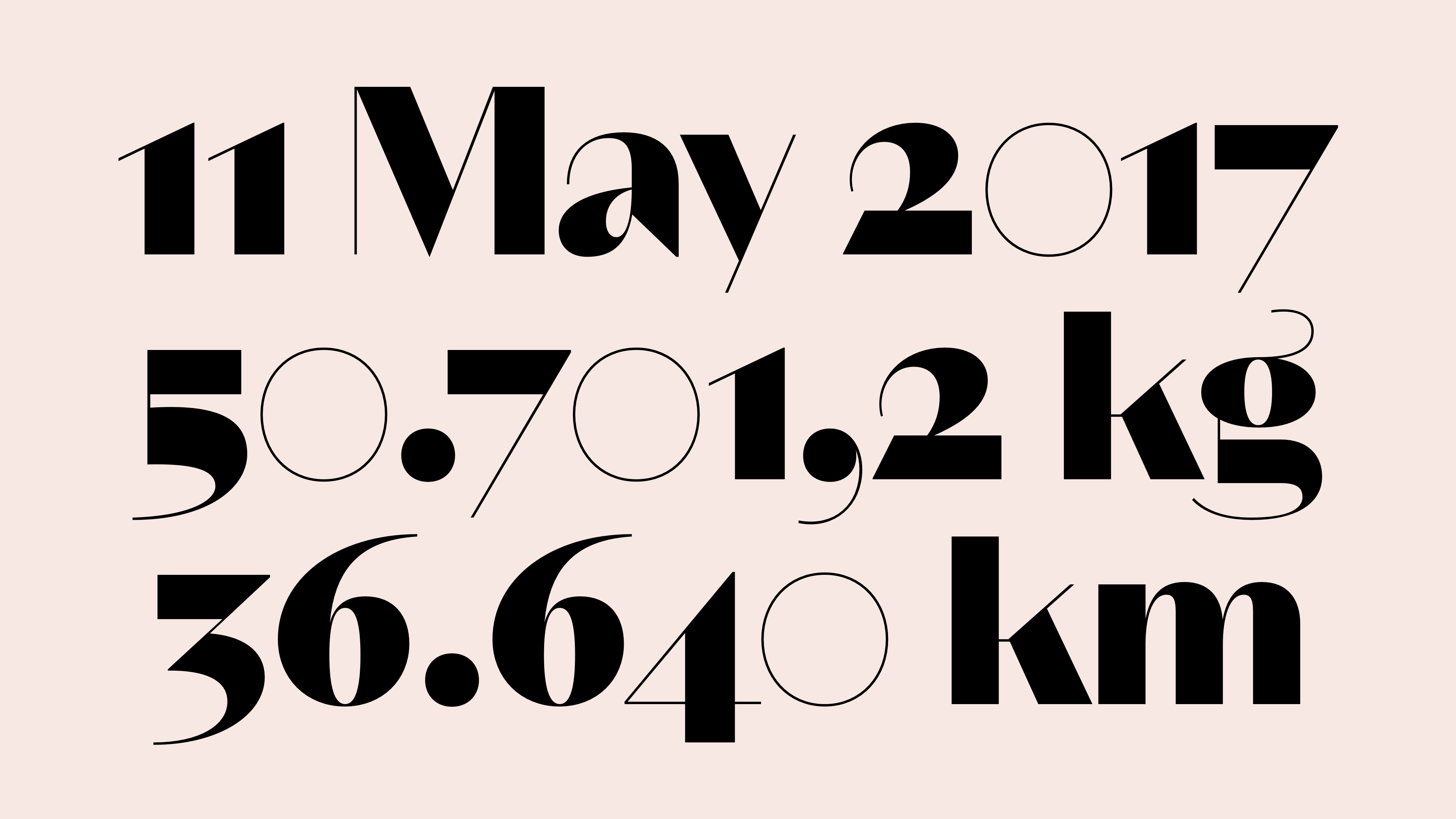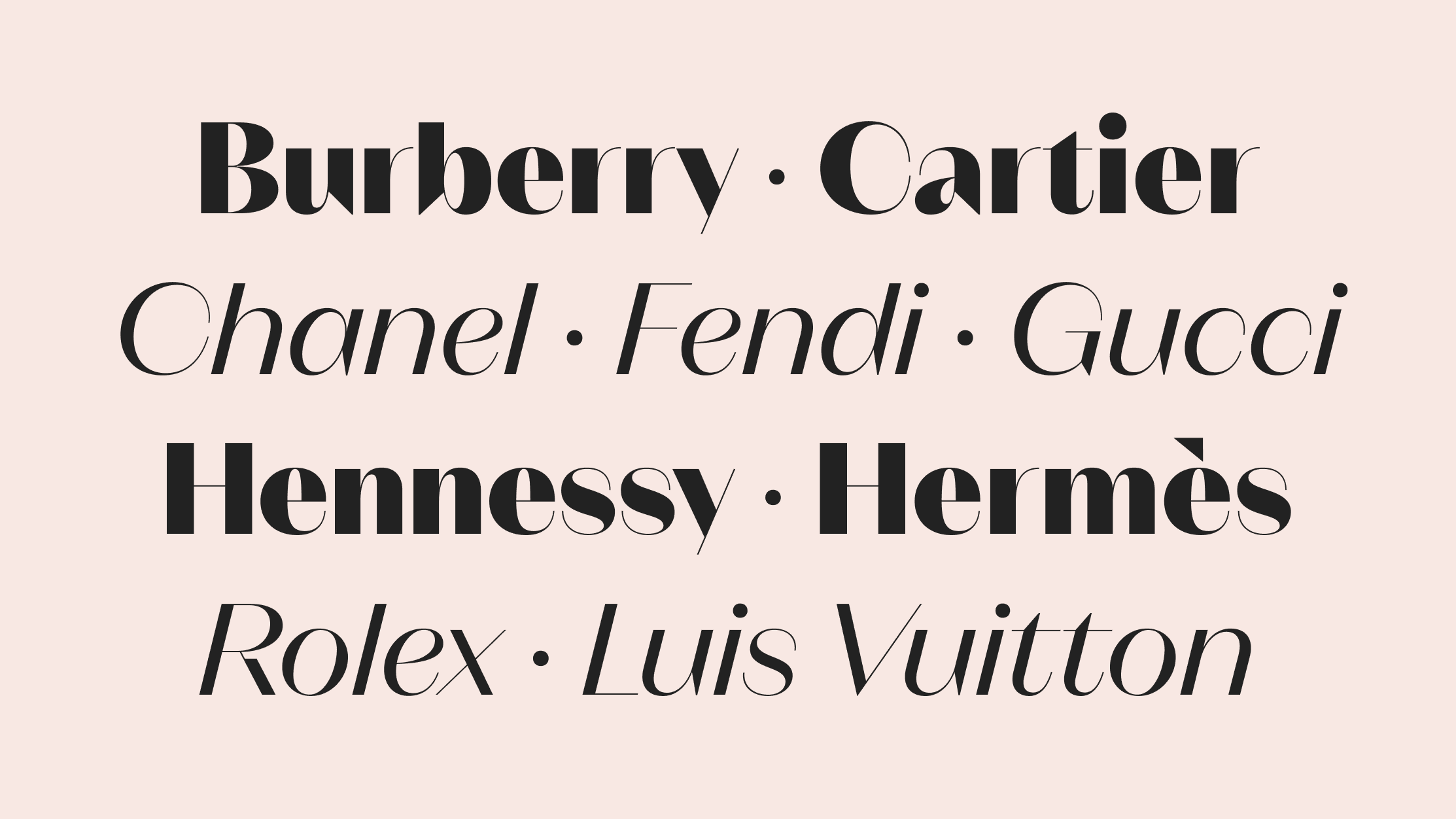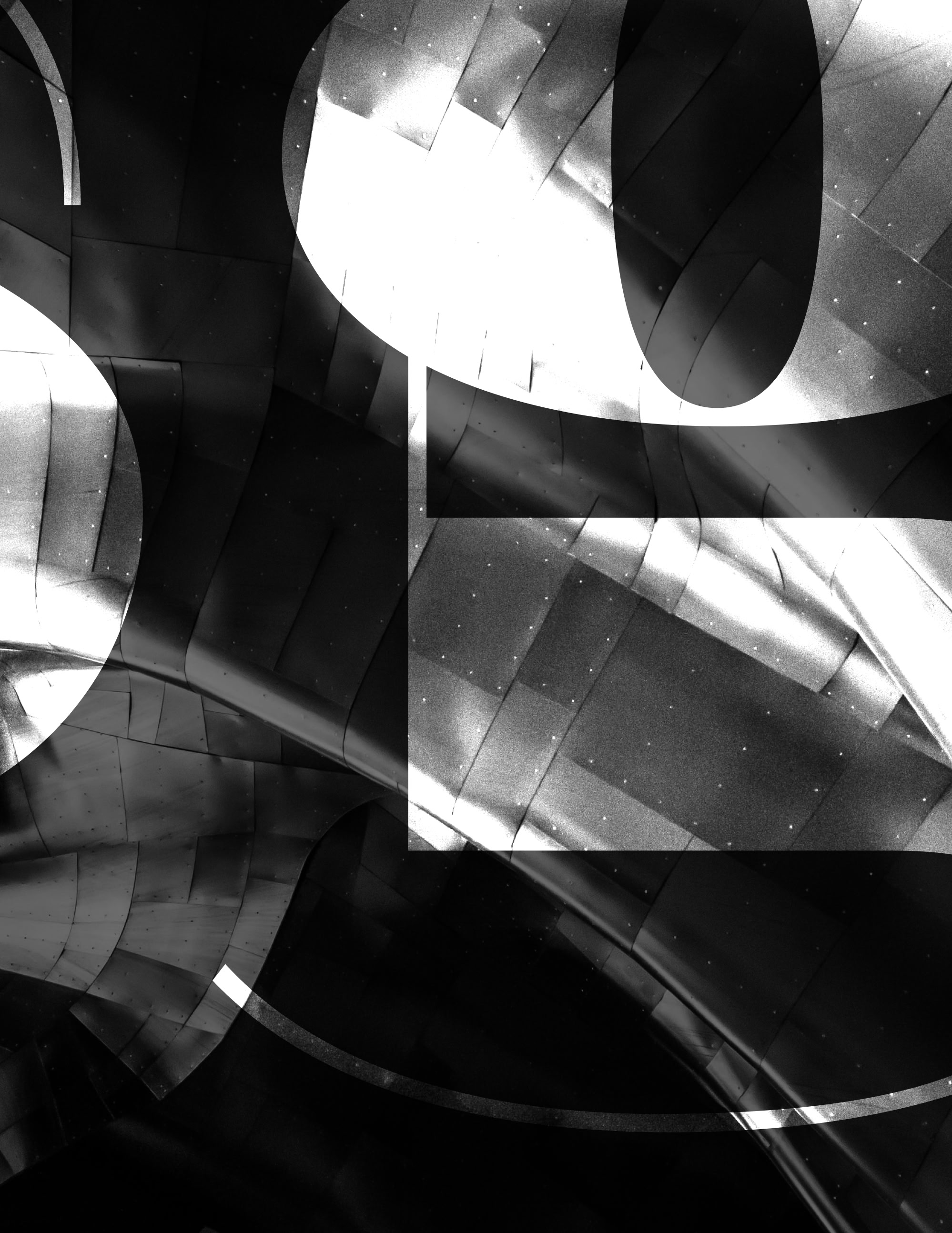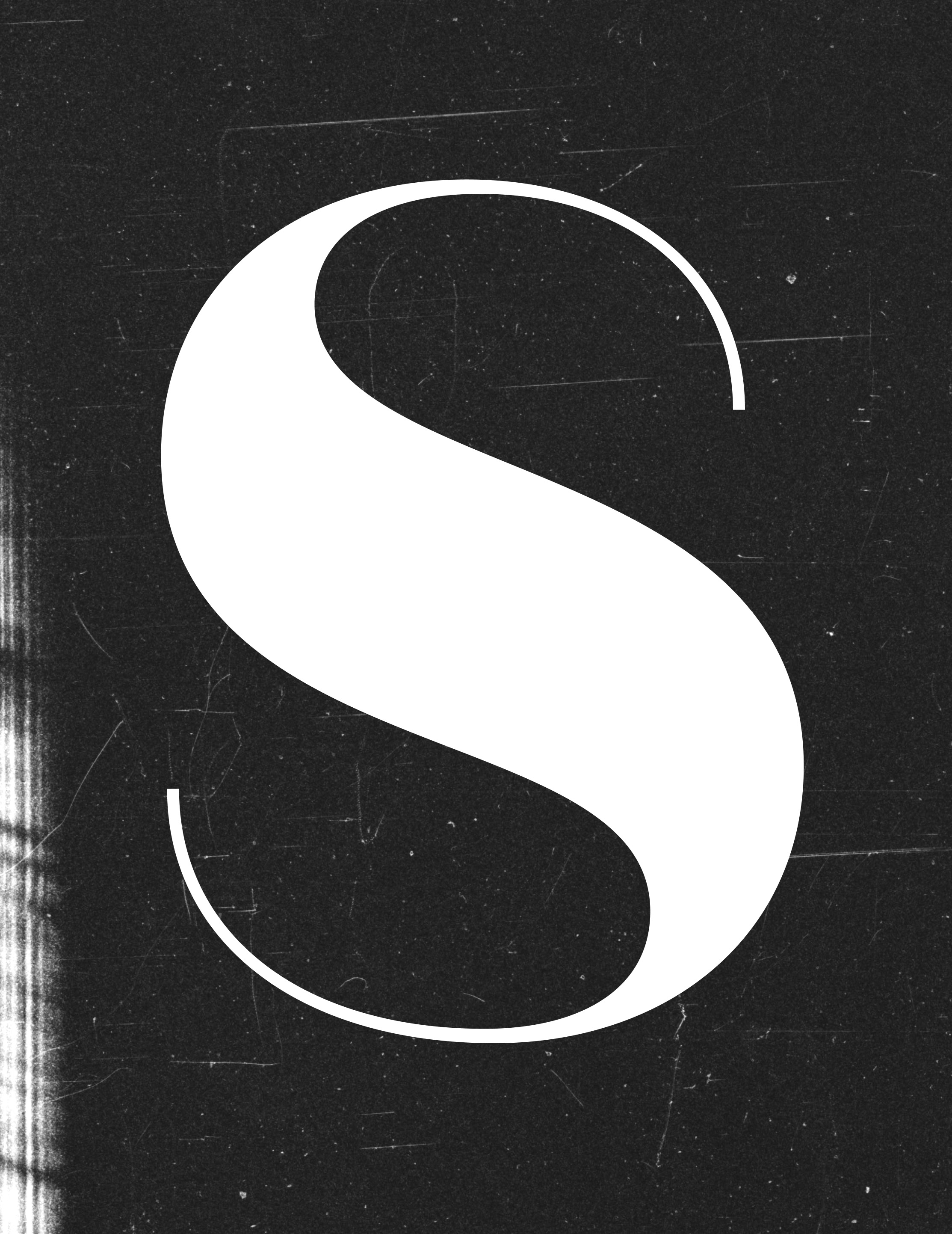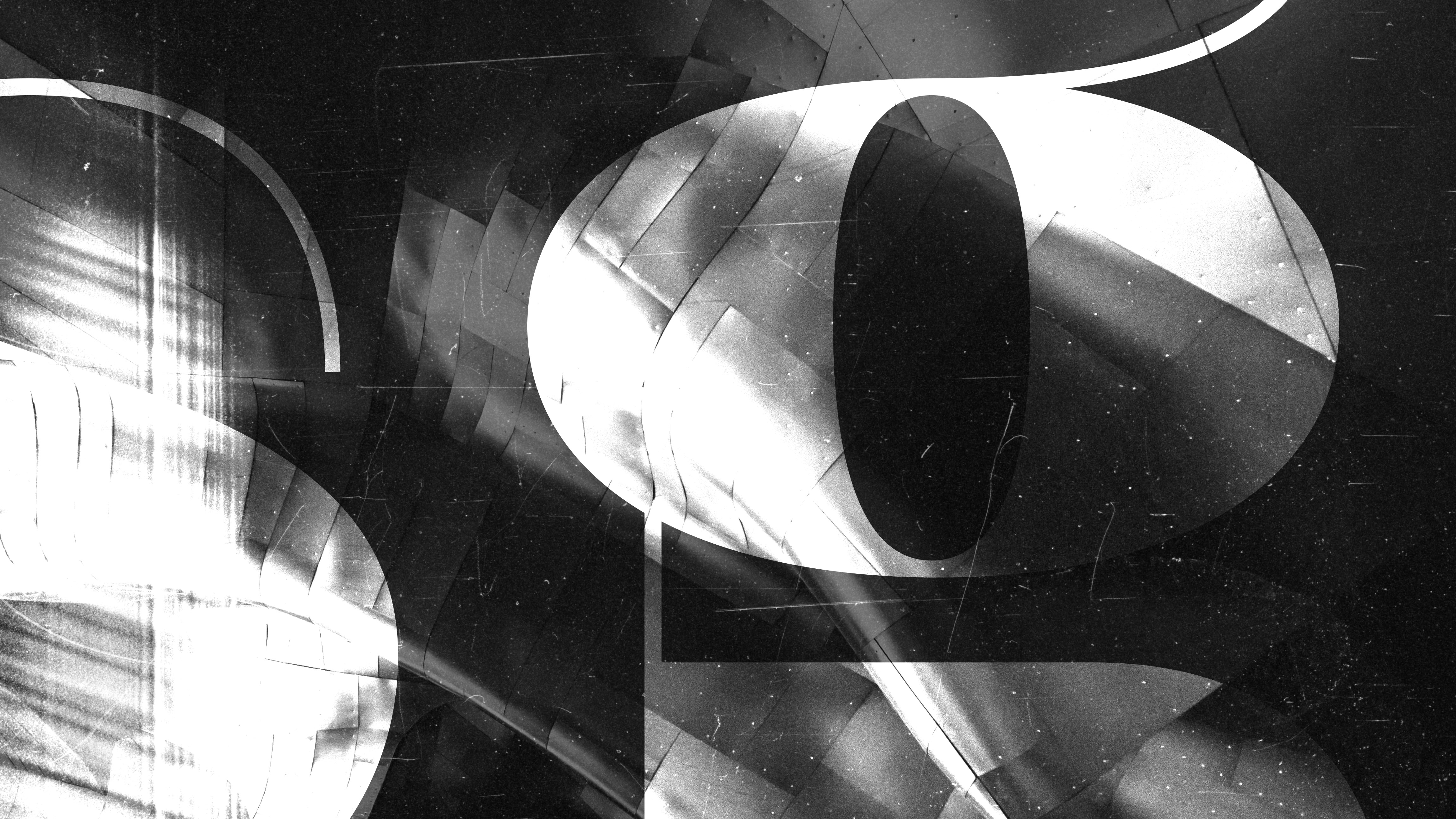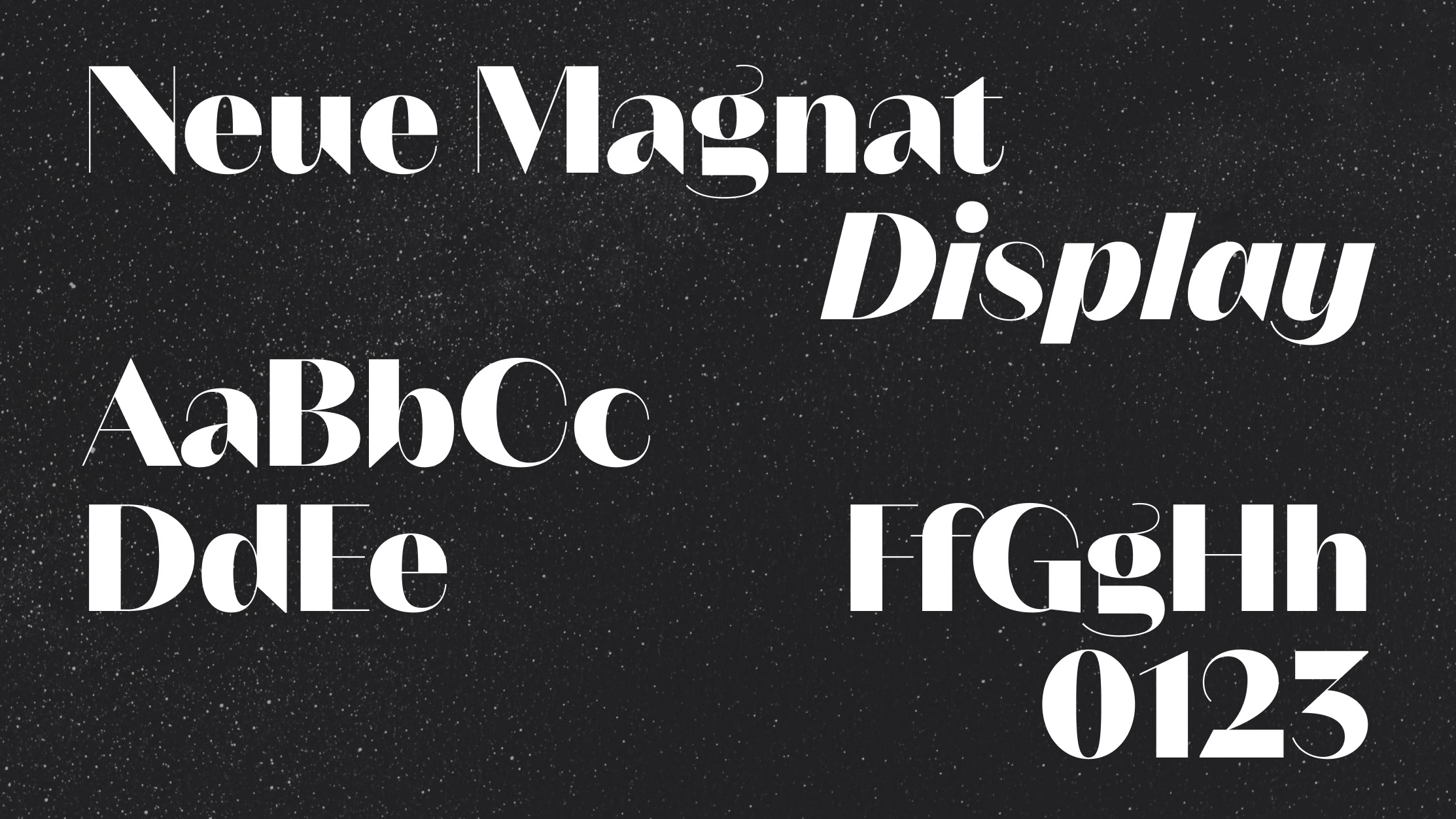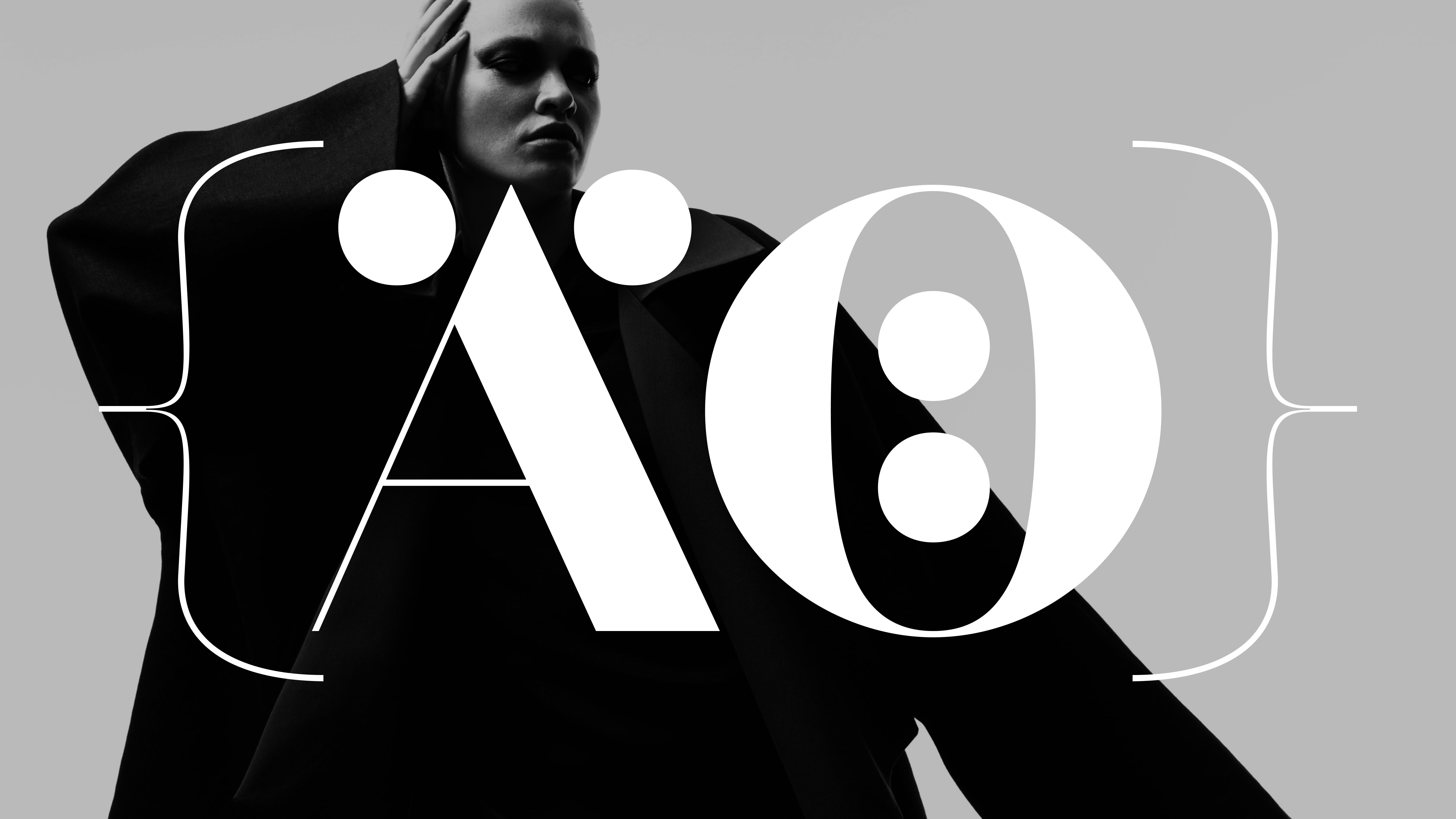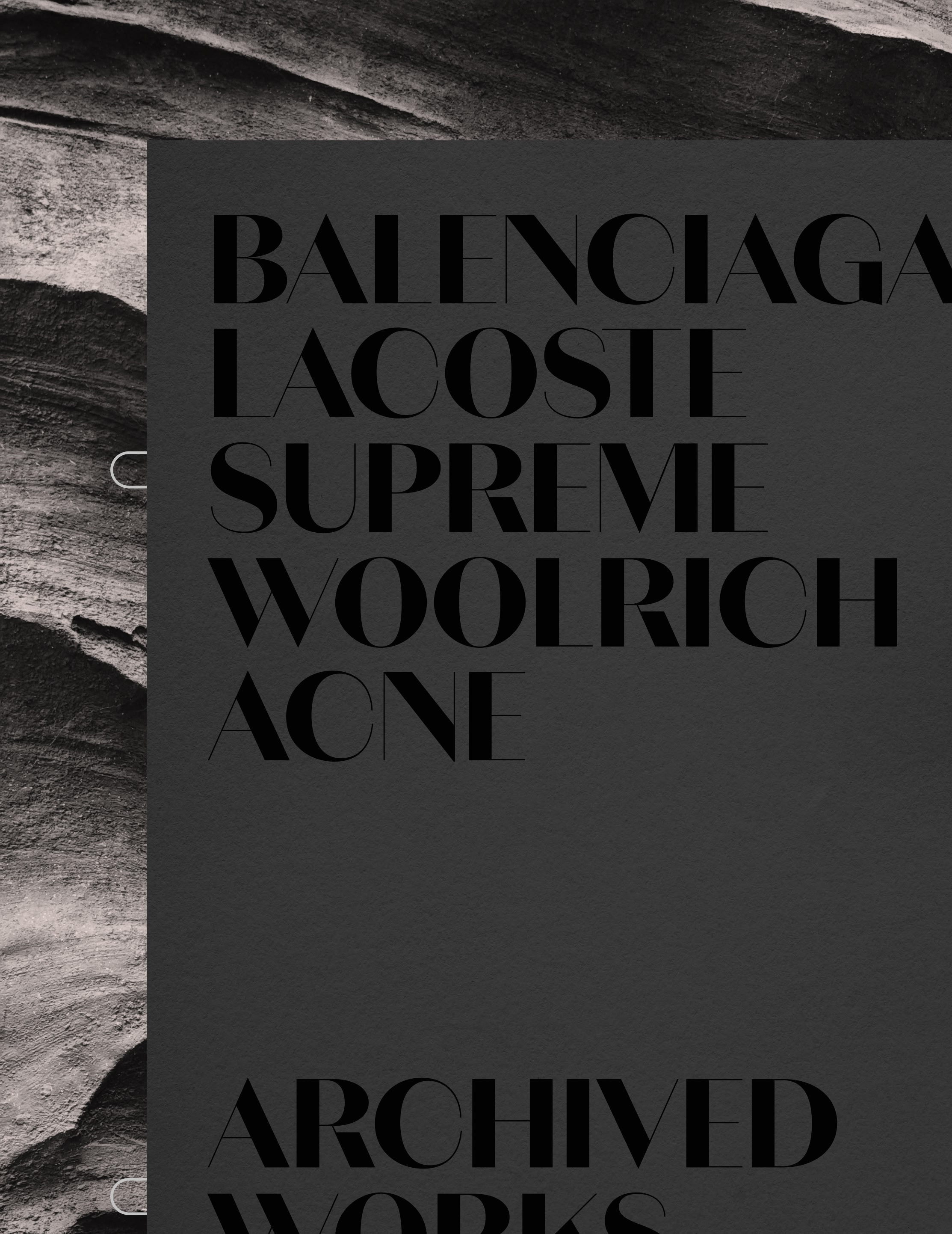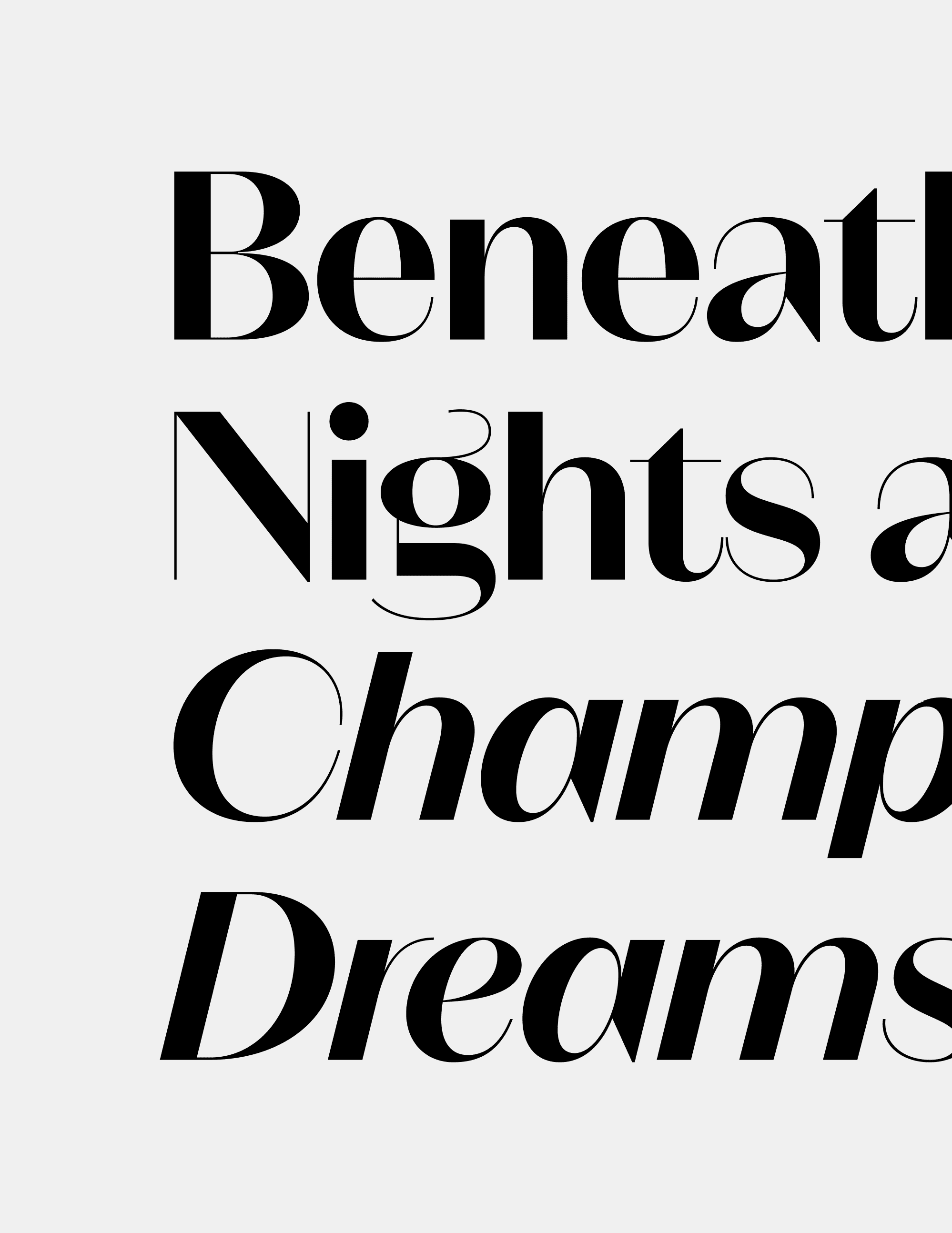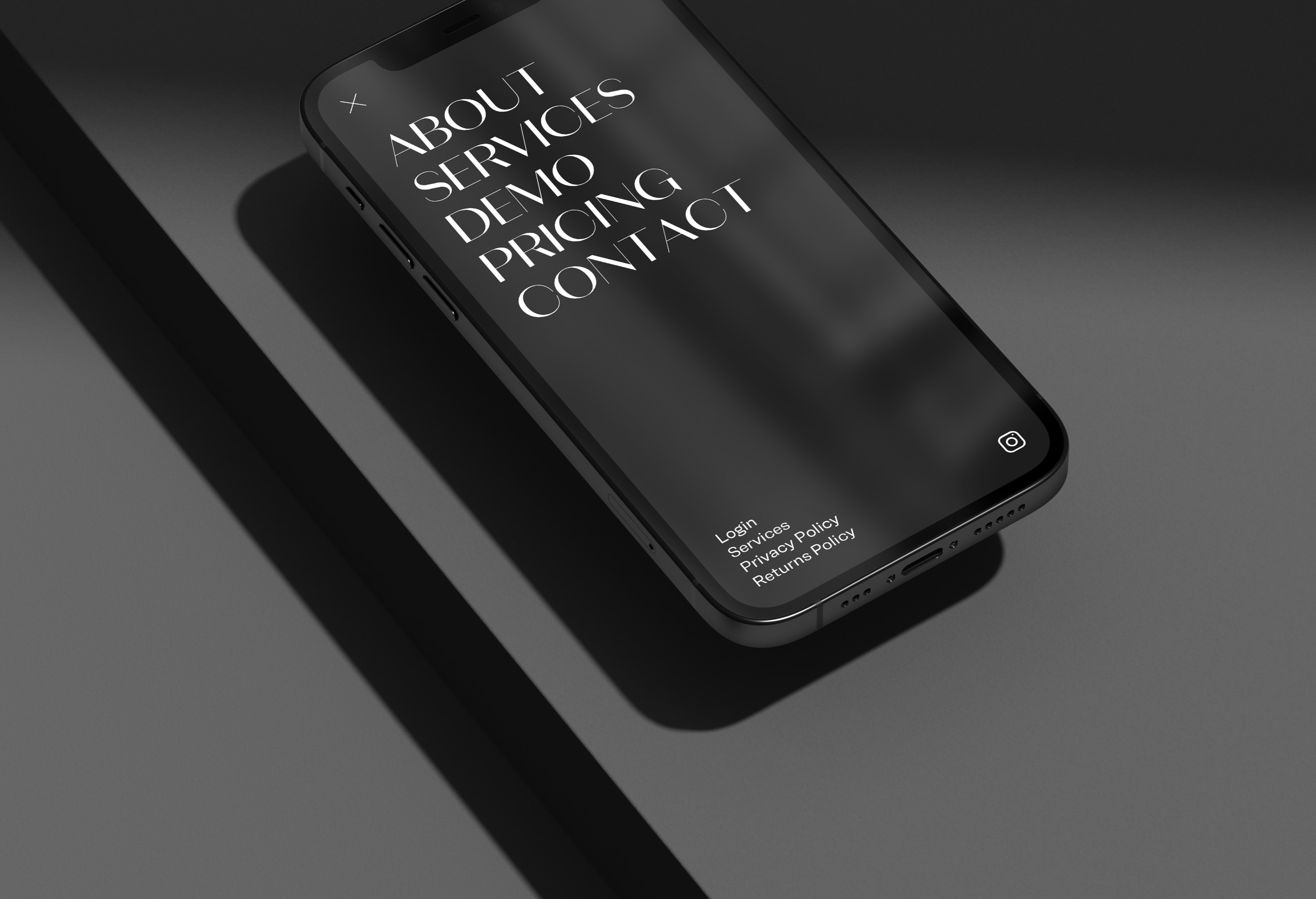
Neue Magnat Display
Neue Magnat Display draws inspiration from 1920s Berlin, a city of cultural innovation and artistic experimentation. Designed for large sizes, it combines striking contrast with elegance. Also available in Text and Headline.